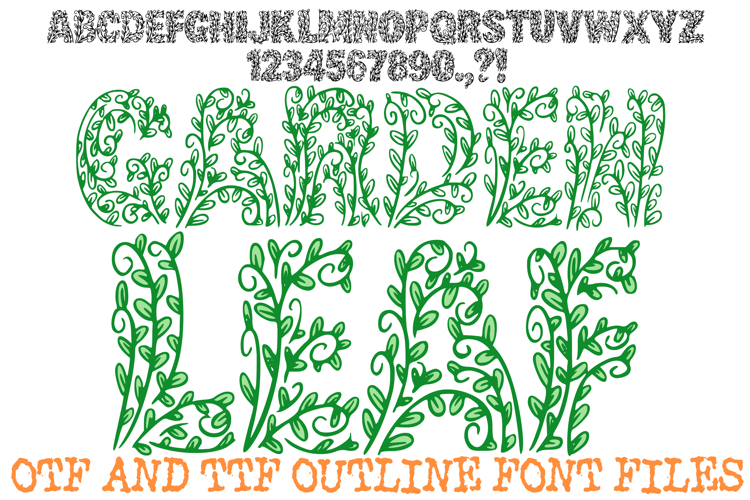
Garden Leaf Font Spring Floral Vine Lettering ABC OTF Type
Embrace the beauty of nature with the Garden Leaf Font! This stunning, hand-drawn display alphabet features bold characters meticulously crafted from an intricate arrangement of delicate leaves and curling vines. It is the perfect choice for botanical branding, garden-themed invitations, organic product packaging, and any creative project that needs a touch of nature’s elegance.
The fine-line detail and botanical silhouette give your headlines a sophisticated, artisan feel while maintaining a playful, doodle aesthetic. Whether you're designing for a florist, creating seasonal classroom materials, or working on custom apparel for nature lovers, the Garden Leaf Font brings an organic, hand-crafted touch that stands out.
Botanical Artistry: Each letter is uniquely shaped using a dense pattern of leaves and vines, creating a cohesive "garden" look.
Intricate Hand-Drawn Detail: The organic line work offers a sophisticated yet whimsical feel, perfect for high-end craft projects.
Nature-Inspired Aesthetic: Ideal for eco-friendly branding, digital scrapbooking, and rustic home decor.